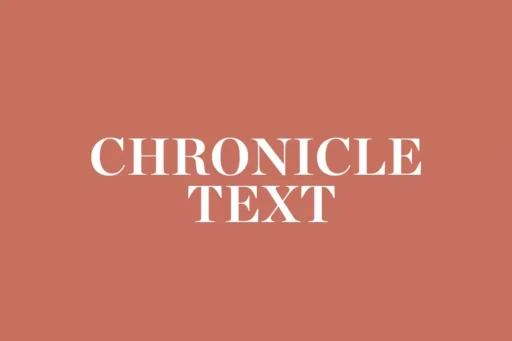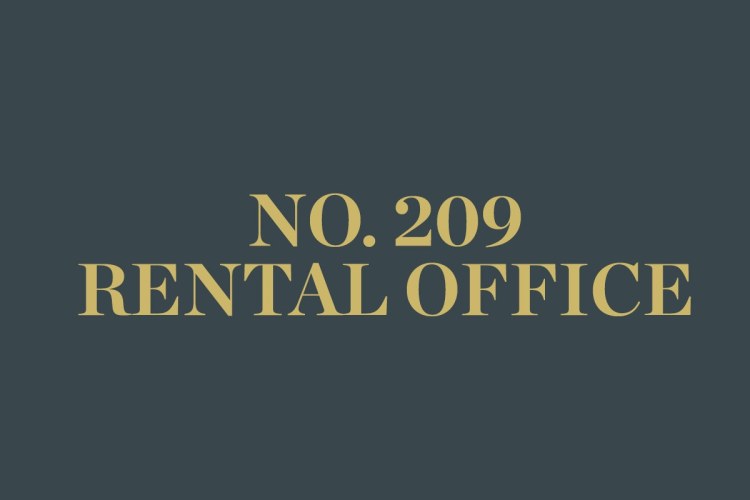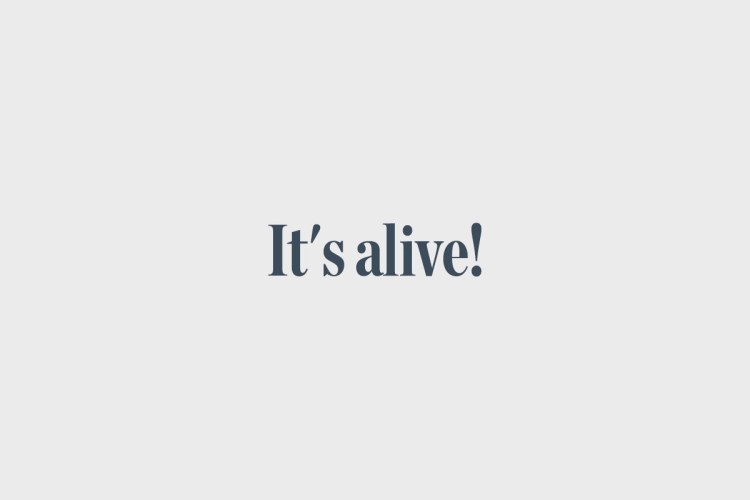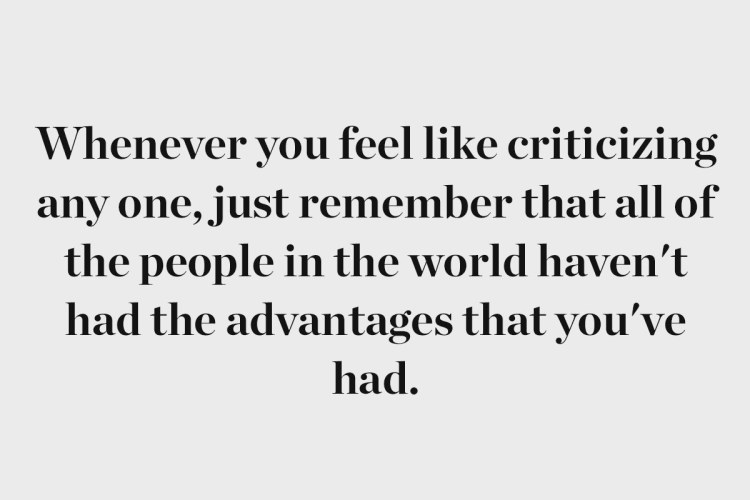
Chronicle Text Font
Chronicle Text Font is a prestigious serif typeface from Jonathan Hoefler’s successful type foundry, which began in the early twenty-first century. This font signifies the Chronicle Text family’s evolution, which is known for superior-quality proficient typography for books. It remained widely popular for many years due to its versatility, which allowed the creation of new fonts based on classic types while fitting into the modern context.
The Font family has influenced modern design, especially in the print media and publishing sector. Thanks to its release, designers could move to a higher level of font sophistication, not only in terms of readability but also as the new standard of the quality of print and digital typefaces. The advances in the digital medium have forced the it to change with them, as it now has many weight and style options for designing with.
Chronicle Text Font typographically distinguishes itself with its look and feel of traditional and restrained aesthetics and numerous refinements. It has thick and thin strokes, old-style round serifs, and organic curves that give the font a distinguished, elegant look – perfect for editorial projects. That is why Chronicle Text Font can comfortably fit different design styles and techniques, including conventional, novel, printed, and digital. Because it comes in many weights and typing styles, it can be used in various designs, making it useful for several designs.
The readability of this font means that it is easily insertable into various design mediums and can suit various styles of design, making it a great asset for many designers. On its own, this font does not appear to lose its classy and readable quality as a design element, whether applied to a traditional book format, a modern magazine layout, or any simple web design. Having most of its features flexible to accommodate current fashion and trends, it’s one of the most sought-after typefaces for designers who seek the neoclassical style that is an amalgamation of classic and contemporary forms.
Using this font in print materials properly requires one to know what the style entails and how it can be useful in making the prints produce nice-looking layouts. When it comes to a book layout, a magazine spread, or an A3 poster design, You can use it to create hierarchy, direct the reader’s attention, and provide a sophisticated appeal of timelessness. This practical applicability in the print media is an added advantage in that it creates an avenue for the designers to be creative and try out new designs in the print media.
It is vital to use this in digital media and web design while taking time to consider the factors that affect its elegance and readability while at the same time affecting its adaptability across different screen sizes and screen resolution levels. When used optimally on the web through key considerations like the responsive design and user experience, the font can easily adapt to the new use of print media without compromising its impact on users. From designing web content to publication housework or designing interfaces, It is a promising addition to the designing toolkit since it adds value and functionality to designs.
Through this layout and the style of fonts, several important aspects of design considerably influence the communication results, such as readability and legibility. It has subtle, smooth curves of the letters, small serifs, fairly large lower-case letters, and not very high contrast, which makes it relatively easy to read and grasp texts when designing at this level. In its appearance in the body texts and/or titles and headlines, Chronicle Text Font’s readability provides an accurate and clear understanding of the intended message.
It can extend the design readability and offer a proper and aesthetically appealing typographical base. Thus, its aesthetic is unobtrusive and sinewy, but it feels familiar to the reader and does not distract from the text. As a result, readability and legibility, which are basic requirements of graphic design, can help designers achieve their ultimate goal – convey the message to the audience.
The classic and classy look of Chronicle Text Font could be used to extend the brand identity and marketing campaign initiatives to ensure that the design is consistent and appealing. As for the application of Chronicle Text Font in a logo, or in the packaging or advertising materials, it does helps the brand to establish a certain visual identity and convey a sense of tradition and sophistication.
This is why it can easily fit into branding and marketing tools, offering a smooth, unified visual design that will stir the intended audience. Due to that, any brand needing a timeless and sophisticated visual design will benefit from using it. In this way, using the characteristics of Chronicle Text Font, the designers can develop the branding and marketing effects that will make a lasting impact and convey brand values and personalities.
Chronicle Text is a serif font developed by Hoefler & Co, it is a classic design, most suitably used in print and digital applications for body text.
The major distinctive features of Chronicle Text font include its tall x-height, moderate contrast, and sturdy serifs. It also comes in a variety of weights and styles, making it suitable for different designs.